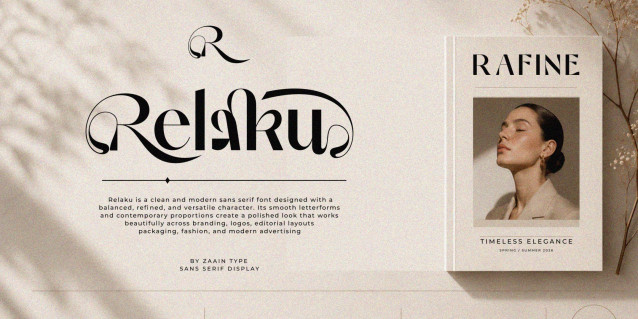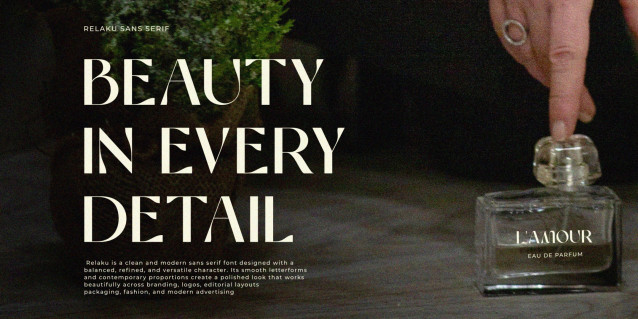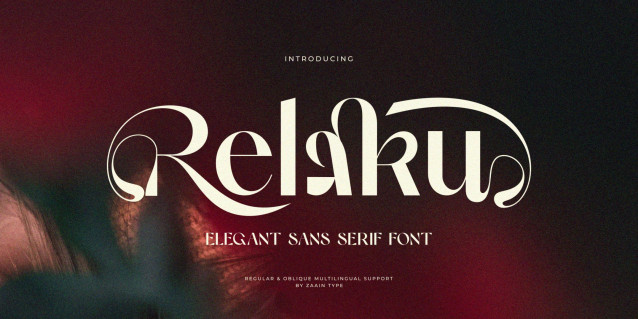
Relaku Font
Relaku is a clean and modern sans serif font designed with a balanced, refined, and versatile character. Its smooth letterforms and contemporary proportions create a polished look that works beautifully across branding, logos, editorial layouts, packaging, fashion, and modern advertising.